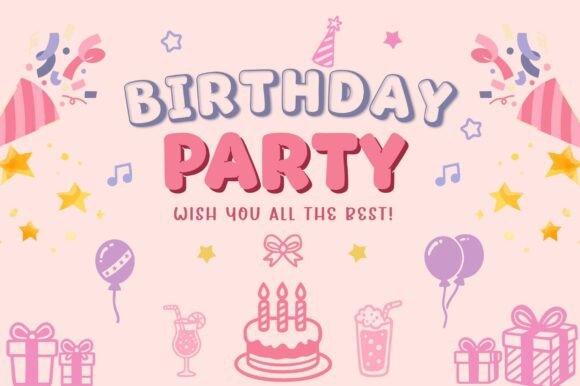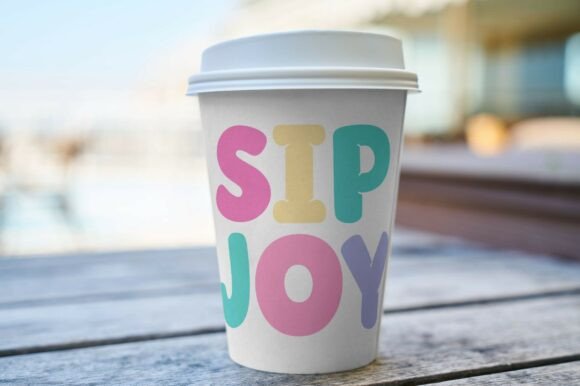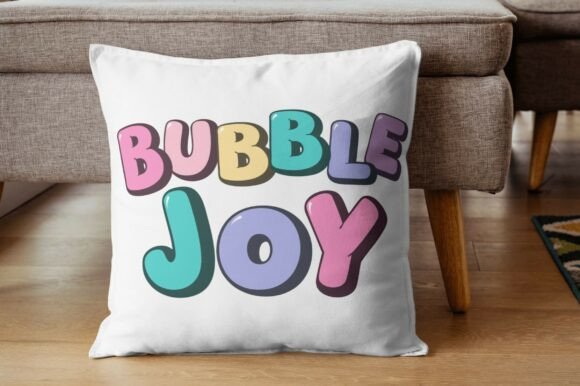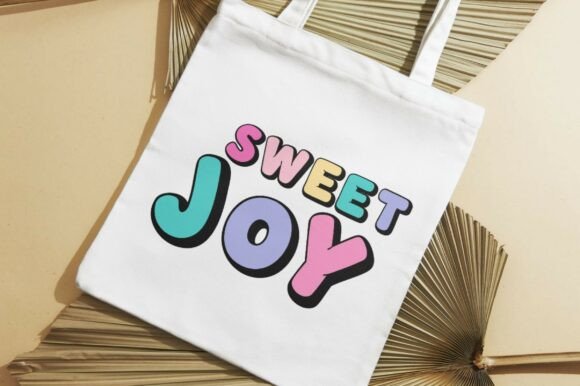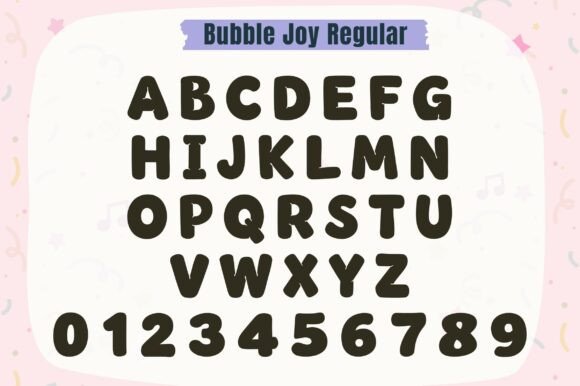
Meet Bubble Joy: The Cheerful Bubble Font That’s Making Waves
Have you ever been in the middle of a design project, and suddenly, you’re stuck on finding the perfect font? I recall a recent experience where I was working on a birthday invitation for a client’s kid, and I just couldn’t find a font that screamed “party time!” That’s when I stumbled upon Bubble Joy, a delightful bubble font that has since become a staple in my design toolkit.
A Personal Review of Bubble Joy
Bubble Joy is more than just a font; it’s a design experience. This cheerful bubble font comes in two styles: Regular and Outline. The magic happens when you stack these two styles, allowing you to create colorful, layered font titles and sticker-style shadows in seconds.
What I Love About Bubble Joy ✨
- ✅ Highly legible, even at small sizes, making it perfect for tiny stickers and big banners alike.
- ✅ The Regular and Outline styles complement each other beautifully, offering endless design possibilities.
- ✅ Its rounded, chunky design is irresistibly fun and engaging, perfect for kids’ projects.
- ✅ Versatile and easy to use across various platforms and applications.
While Bubble Joy is an excellent font, there are a few minor considerations to keep in mind:
- ⚠️ The font’s playful nature might not make it the best fit for very formal or professional projects.
- ⚠️ As with any font that relies heavily on its design, ensuring legibility at very small sizes might require some testing.
The Backstory Behind Bubble Joy
Bubble Joy was designed with one goal in mind: to spread joy through typography. Its creator, inspired by childhood memories of bubblegum and blowing bubbles, sought to capture that sense of fun and innocence in a font. The result is a typeface that’s not only fun but also remarkably versatile.
Bubble Joy is more than just a font; it’s a tool to infuse your designs with fun and personality. Whether you’re a designer, crafter, or hobbyist, this cheerful bubble font is sure to bring a smile to your face and a unique touch to your projects.